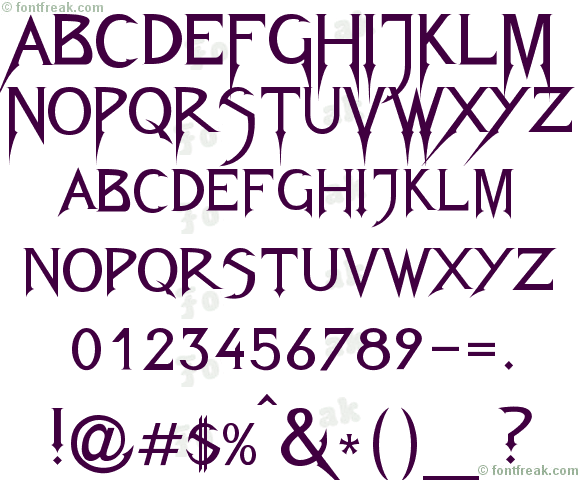
Fiolex Mephisto
About Fiolex Mephisto
Fiolex Mephisto is an elegant display font designed by Fiolex Software, falling under the category of decorative typefaces. This font captures attention with its striking visual characteristics, featuring a bold stroke weight and high contrast that bring a sense of drama to any design. The letterforms are well-spaced, allowing for optimal readability while maintaining an artistic flair. Decorative elements, such as unique serifs and intricate curves, enhance its aesthetic appeal, making it a versatile choice for various creative projects.
Ideal use cases for the Fiolex Mephisto font include wedding invitations, where its sophisticated style can elevate the design to match the occasion's elegance. Additionally, it works wonderfully for movie posters, where the dramatic flair can create an eye-catching focal point. Restaurant menus can also benefit from this font, as it adds a touch of refinement, enticing diners even before they start ordering. Graphic designers will appreciate its ability to stand out in branding projects, particularly for businesses looking to convey a sense of luxury or creativity. Content creators can find this font useful for social media graphics, ensuring their posts grab attention in crowded feeds.
The target audience for Fiolex Mephisto includes graphic designers, small business owners, and content creators seeking a unique typeface that captures the essence of their projects. With its distinctive style and versatility, the Fiolex Mephisto font free download offers an exciting opportunity to enhance any design work. Its standout features and aesthetic versatility make it a must-have for those looking to make a lasting impression in their creative endeavors.